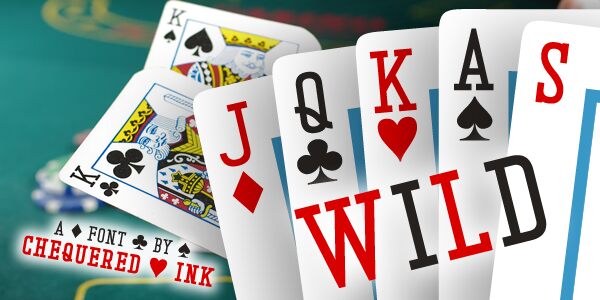
JQKAs Wild
JQKAs Wild by Chequered Ink is a unique and versatile slab serif font that exudes creativity and energy. Its semi-light weight and condensed width make it perfect for projects that require a bold statement without taking up too much space. Whether you're designing a modern logo or creating eye-catching headlines, JQKAs Wild is the perfect choice for any project that demands attention. From edgy fashion magazines to tech startups, this font brings an urban flair and an air of sophistication to any design. With its sharp lines and bold curves, JQKAs Wild is the ultimate tool for designers looking to make their mark in the world of typography.